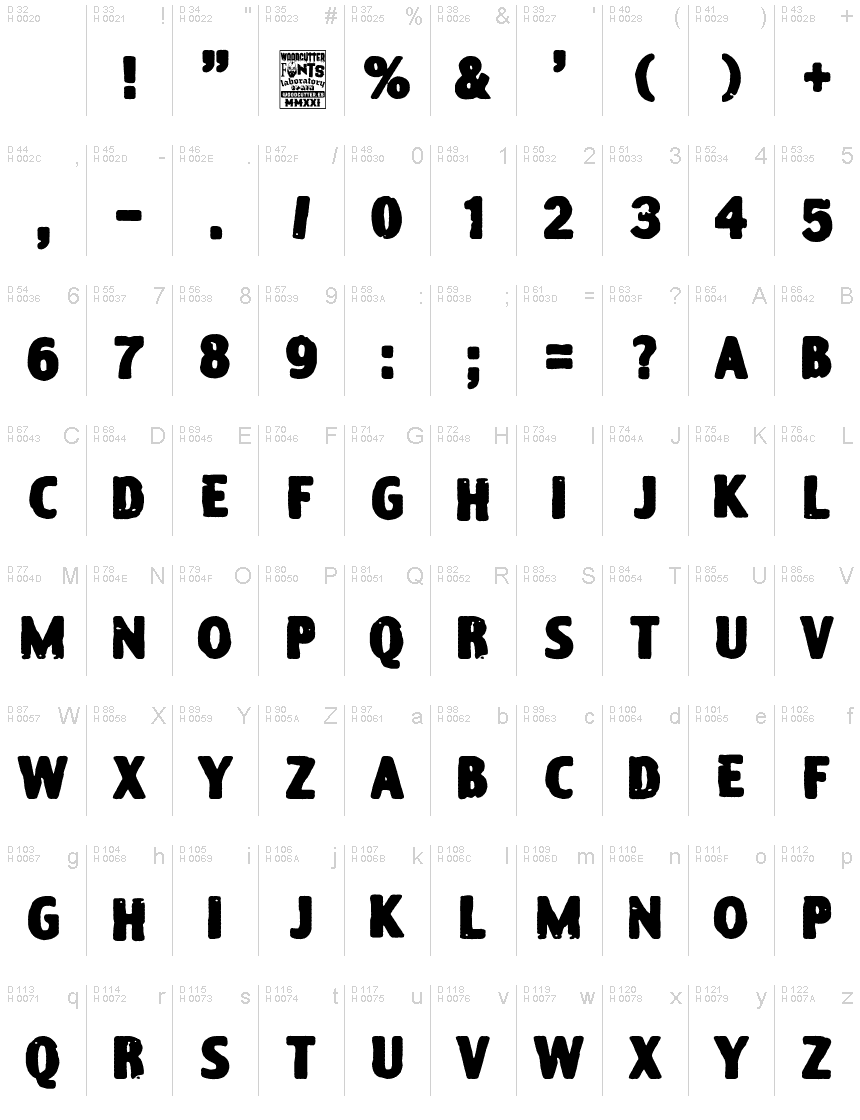
Jennie on the Block
Jennie on the Block is a bold display font designed by Woodcutter Manero. With its eroded style, this unique font makes an impactful statement and is perfect for projects that need an eye-catching typography. Jennie on the Block is ideal for headlines, posters, logos, and other creative designs.